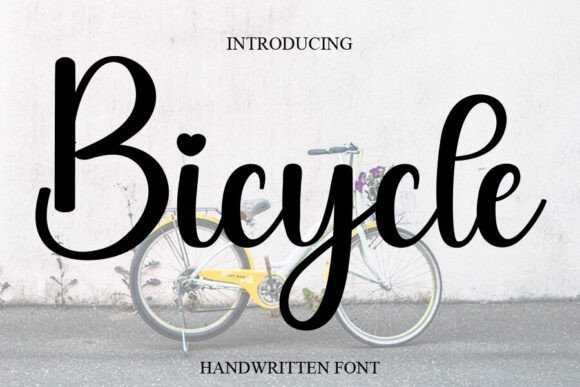
The Art of Beautiful Typography: Unlocking the Power of Calligraphy Font
As a designer, have you ever struggled to convey the perfect message through your work? The moment of truth arrives when you need to craft the perfect invitation, a heartfelt birthday card, or a stunning headline that captures the essence of your brand. It’s in these moments that the right font can make all the difference, elevating your design from ordinary to extraordinary.
This is where the Calligraphy Font comes in – a stylish and modern handwritten font that’s sure to add a touch of elegance to any project. With its PUA encoding, accessing the amazing glyphs and ligatures is a breeze, allowing you to unlock the full potential of this versatile font. Whether you’re a seasoned designer or just starting out, the Calligraphy Font is a valuable tool that will help you create stunning designs that leave a lasting impression.
Key Features of Calligraphy Font
- Unique Characteristics: Features elegant, cursive, and connected letterforms, with subtle flourishes and swashes, giving it a distinctive and sophisticated look.
- Language Support: Supports multiple languages, including Latin, Cyrillic, and Greek scripts, making it a versatile choice for global design projects.
- Style Options: Available in various styles, including regular, bold, italic, and bold italic, allowing designers to experiment with different looks and moods.
Calligraphy Font Review
Overall, I think the Calligraphy Font is a beautiful addition to any design project. The ✨ elegant lines and flowing curves make it perfect for wedding invitations, greeting cards, and other special occasions. I love how it adds a touch of sophistication and whimsy to the design.
- ✨ Elegant and flowing curves that add a touch of whimsy to the design.
- ✨ Perfect for special occasions like weddings, birthdays, and holidays.
- ⚠️ Limited font sizes, which can make it difficult to use in smaller or larger design projects.
- ⚠️ Some users may find the font too ornate or busy, which can be overwhelming in certain designs.
Overall, I think the Calligraphy Font is a great choice for designers who want to add a touch of elegance and sophistication to their projects. With a little creativity and experimentation, you can use this font to create truly stunning designs. Just be aware of its limitations and be prepared to adjust your design accordingly.
Calligraphy Font: A Practical Application Guide
Calligraphy fonts are commonly used for:
Special occasion cards and gift tags
Decorative typography and art
Experiment with different font sizes and styles to create a unique look.
Combine calligraphy fonts with other decorative fonts for added visual interest.
Use calligraphy fonts sparingly to avoid overwhelming the design.